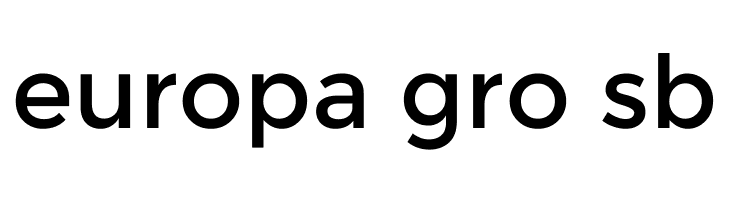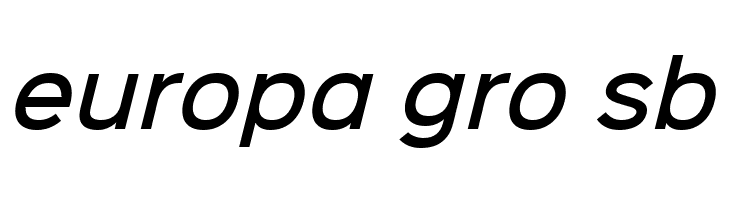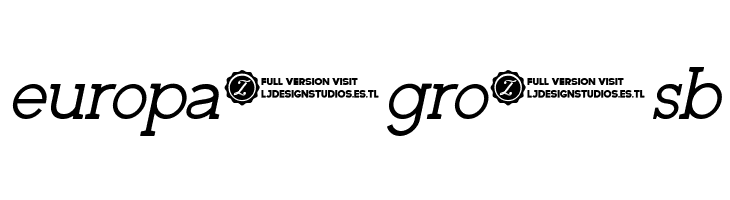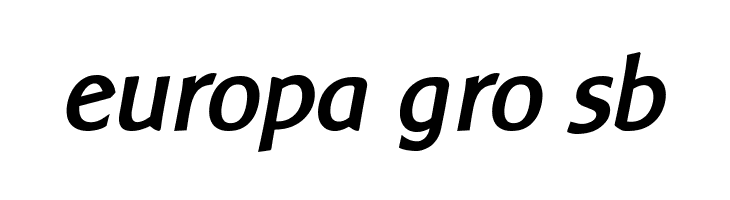
• MundaneGothic-Regular
( HENRIavecunK )
A modern, tall, and narrow sans-serif font with a clean and professional appearance.
• Montserrat-Regular
( Julieta Ulanovsky - twitter.com/julietulanovsky )
A modern, geometric sans-serif font with a clean and professional look.
• Sinkin Sans 500 Medium Italic
( K-Type - www.k-type.com )
A modern, medium-weight sans-serif font with an italic slant and balanced proportions.
• Zilap Corporative Italic
( LJ Design Studios - www.ljdesignstudios.com )
A modern italic font with sleek curves and a professional appearance.
• Baar Philos Bold
( Lutz Baar - baar.se/aidfonts/ )
A bold, modern font with clean lines and a slightly condensed form.
• Baar Sophia BoldItalic
( Lutz Baar - baar.se/aidfonts/ )
A bold, italicized font with a modern and sleek design.
• Xero Thin Italic
( Megami Studios - incstonedesign.com/ )
A sleek, modern, thin italic font with a clean and professional appearance.
• noope
A clean, modern font with balanced proportions and excellent readability.
• Colton Small Capitals
( Roger White - web.archive.org/web/20120416090521/www.rogersfonts.org.uk/ )
A classic serif font with elegant serifs and moderate contrast, offering a timeless and sophisticated look.
• Poolside Regular